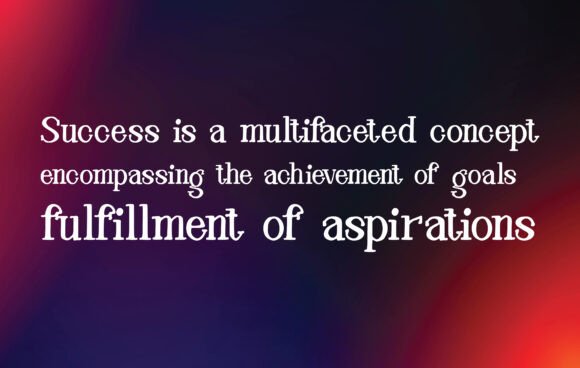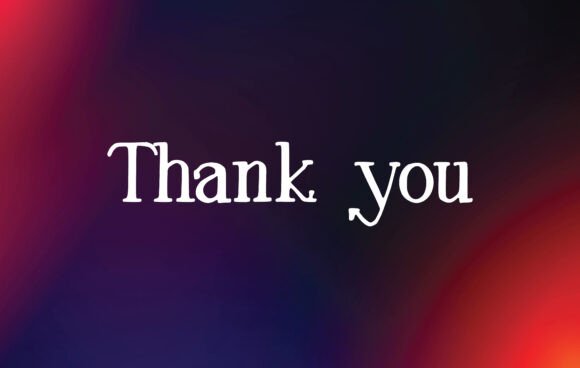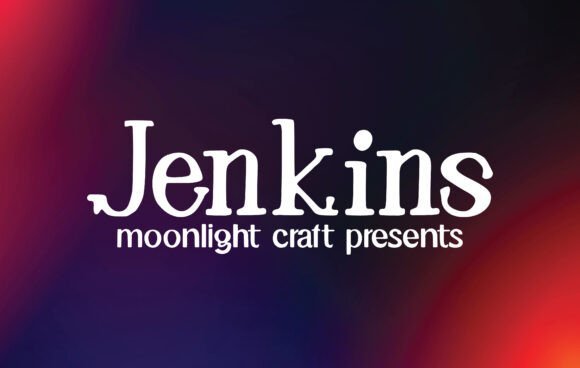
Introduction to Jenkins Font
Jenkins is a lovely and beautiful font.
Key Features of Jenkins Font
Why Choose Jenkins Font?
Jenkins Font offers exceptional quality and versatility, making it a valuable addition to your design toolkit. Whether you’re creating for personal projects or commercial use, Jenkins Font delivers professional results.